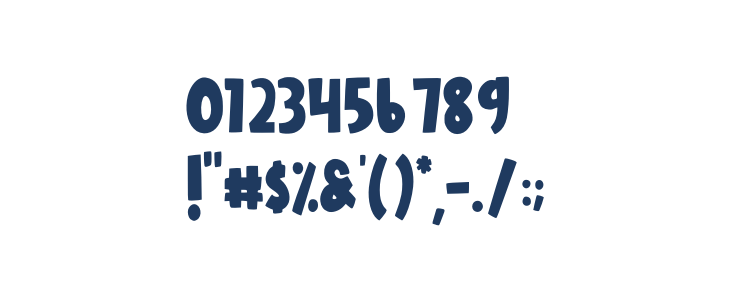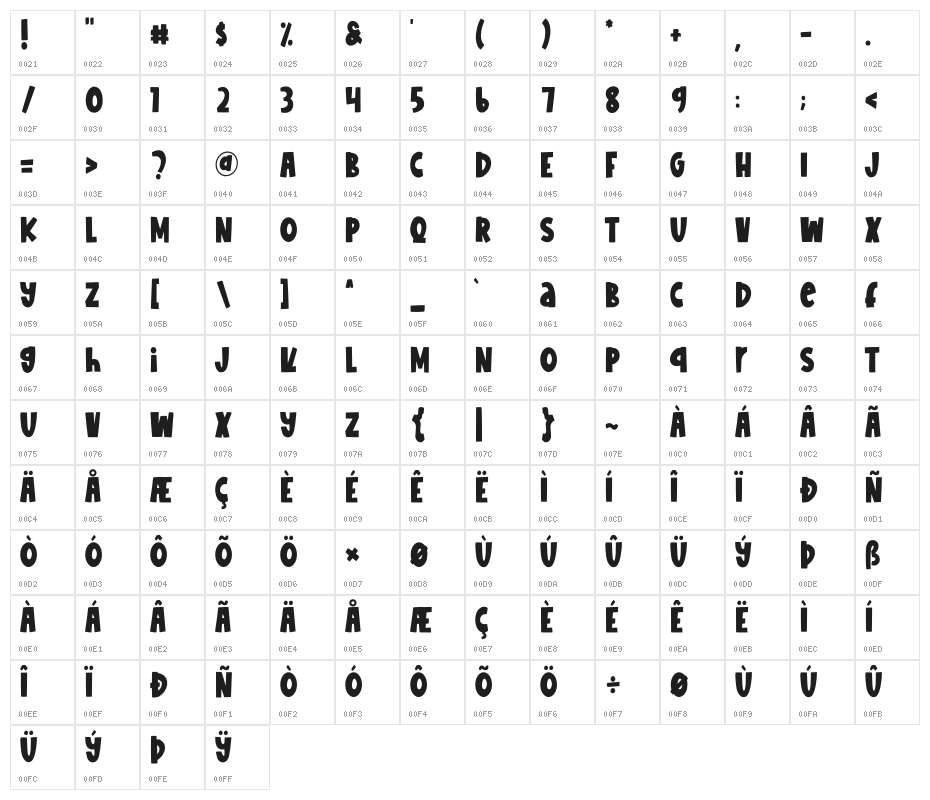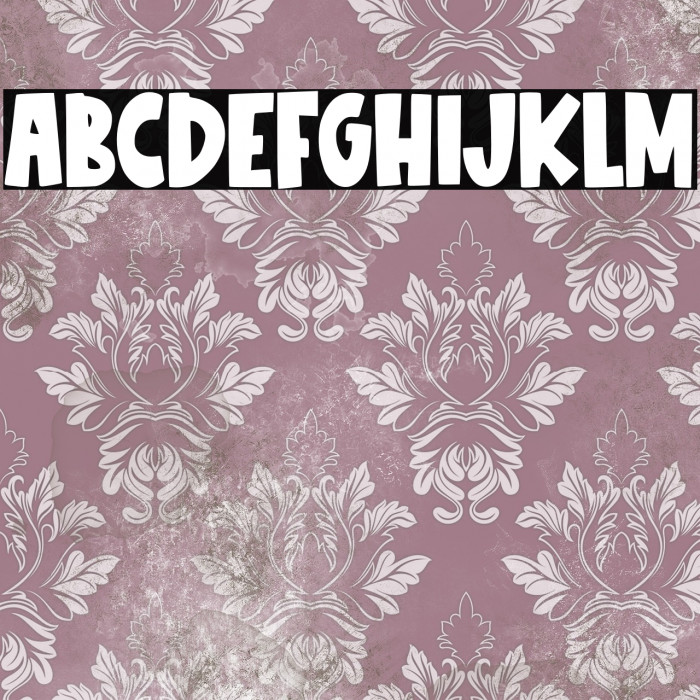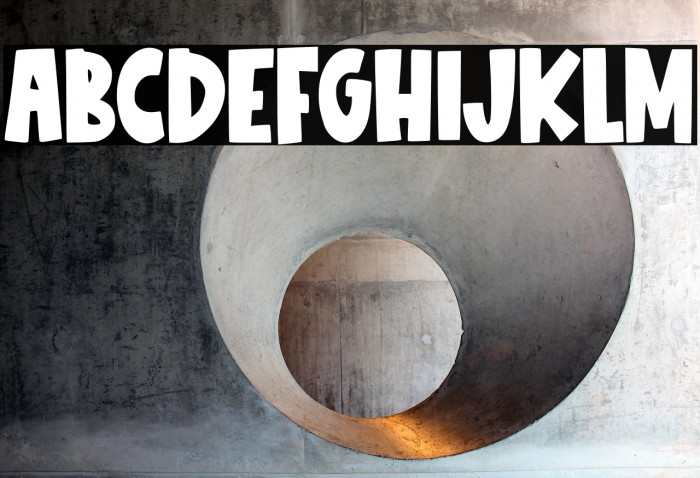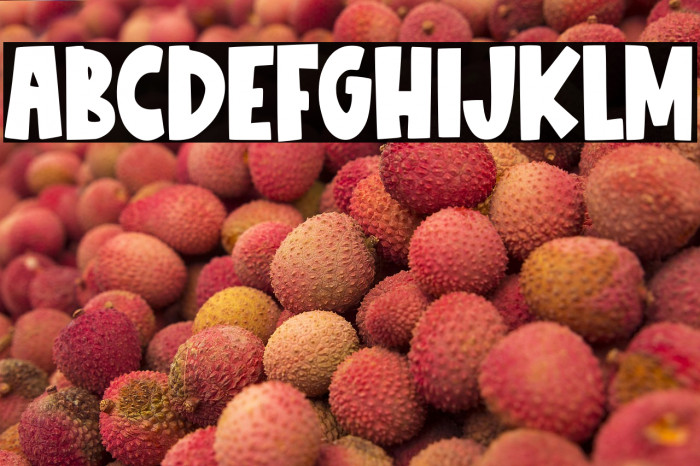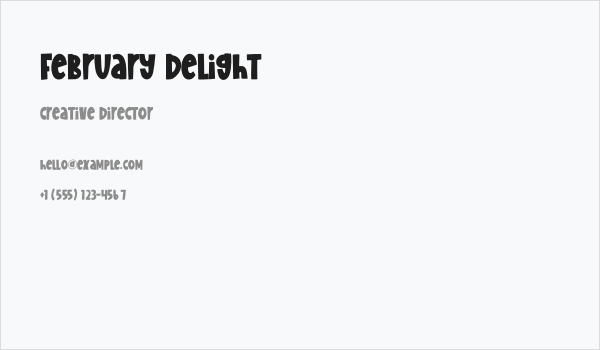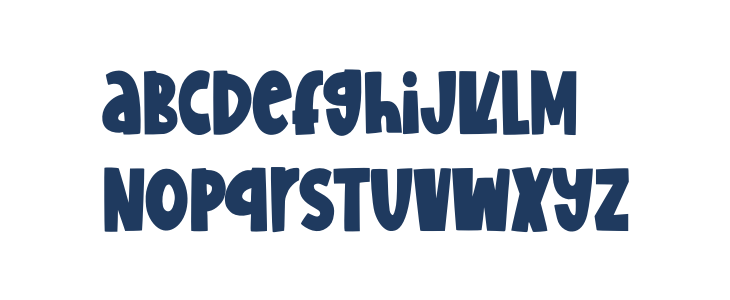
February Delight Font
February Delight Description
This font features a bold and playful style with thick, rounded strokes that give it a friendly and approachable appearance. The characters are slightly irregular, adding a whimsical touch that enhances its charm. The uppercase and lowercase letters maintain a consistent weight, contributing to a cohesive look. The numbers and special characters follow the same design principles, ensuring uniformity across all elements. This font's unique personality makes it stand out, making it ideal for projects that require a fun and engaging visual element.
| Overall Style | Playful, Whimsical |
| Proposed Projects | Perfect for children's books, playful branding, posters, and social media graphics. |